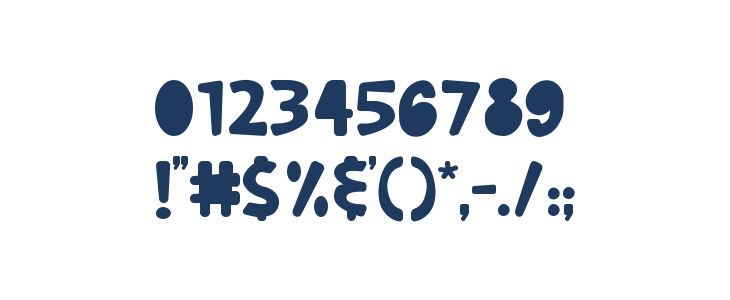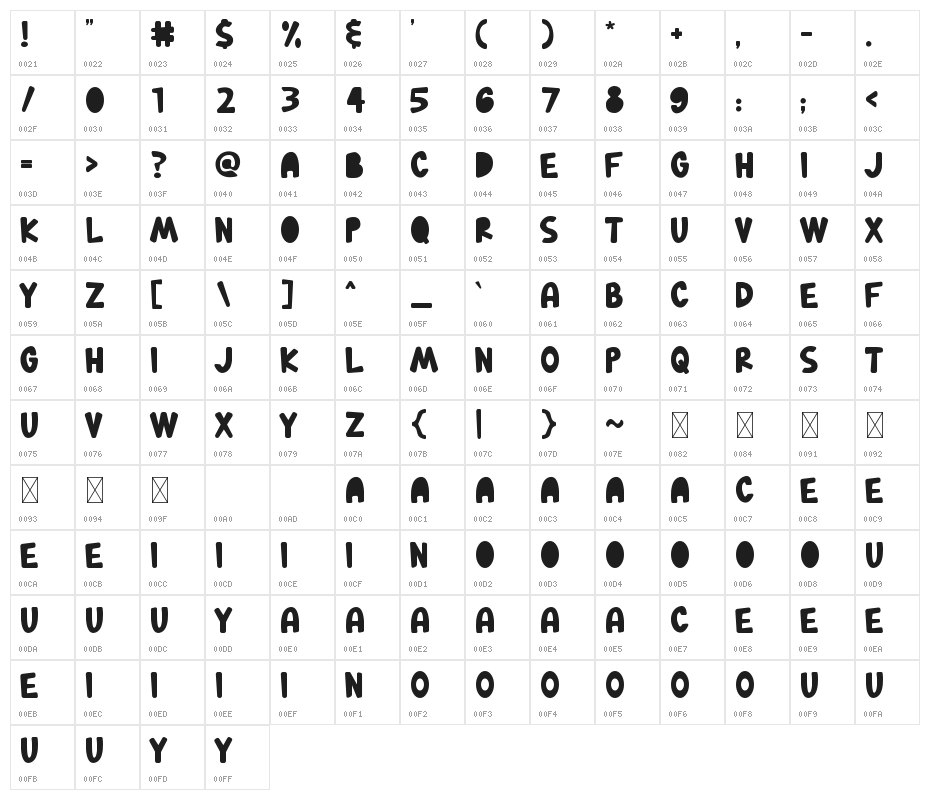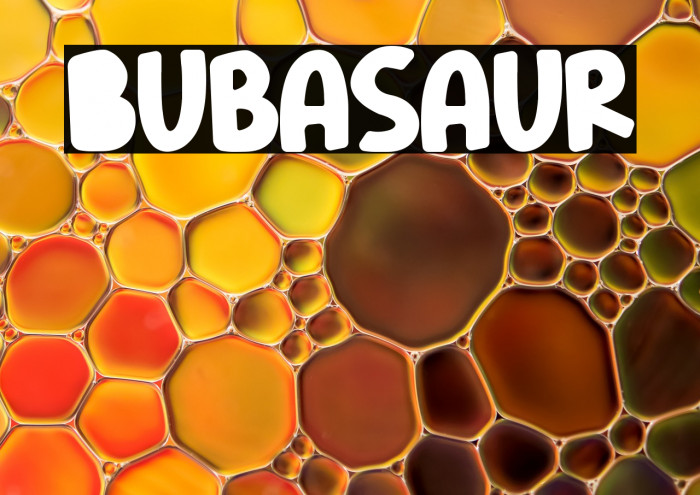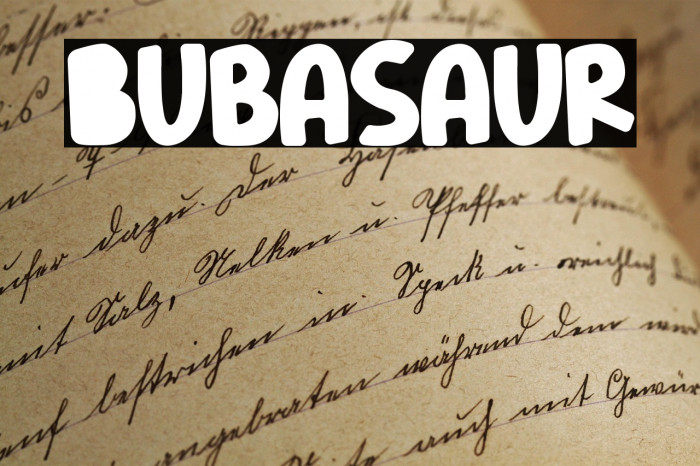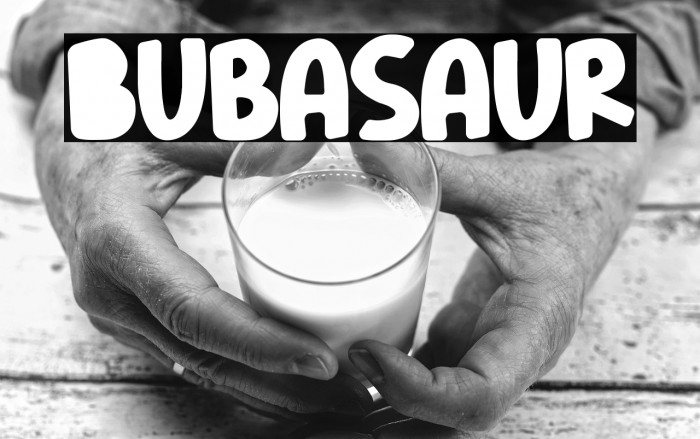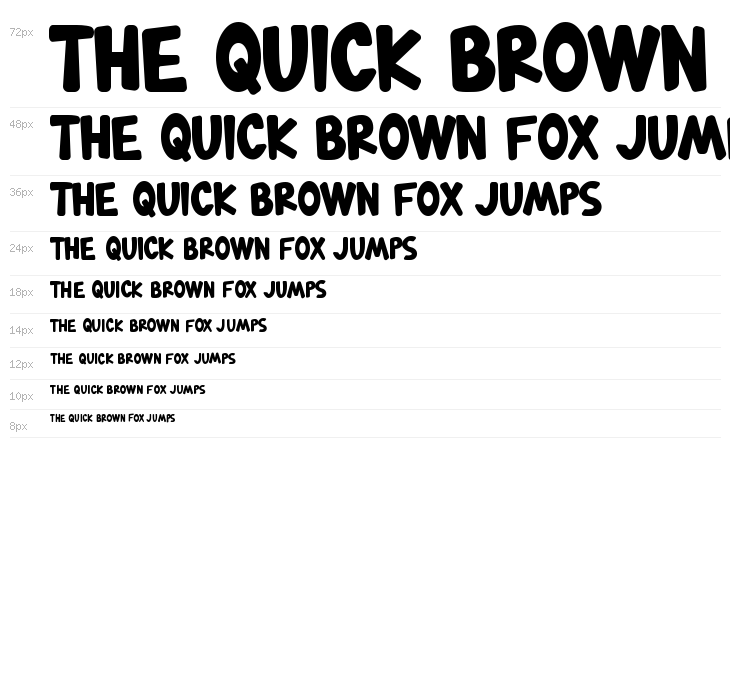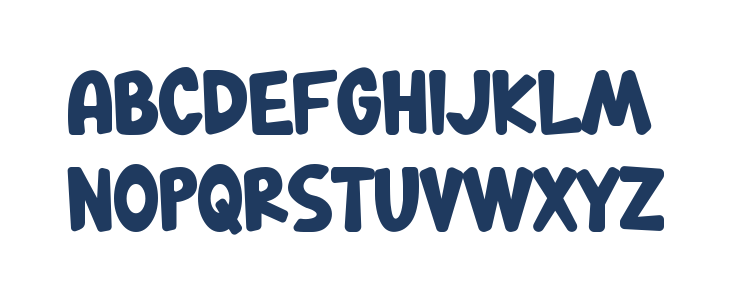
Bubasaur Font
Bubasaur Description
This playful and bold font features thick, rounded characters that exude a sense of fun and whimsy. The letters are uniformly bold, with a consistent stroke width that gives them a solid and substantial appearance. The rounded edges and slightly irregular shapes add a touch of informality, making it perfect for projects that require a friendly and approachable look. The numbers and special characters maintain the same playful style, ensuring a cohesive appearance across all text elements. This font is ideal for capturing attention and conveying a sense of joy and creativity.